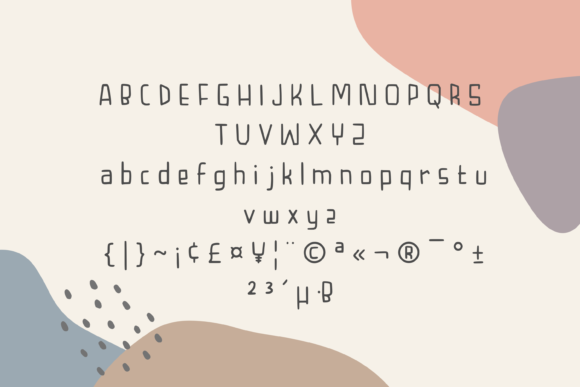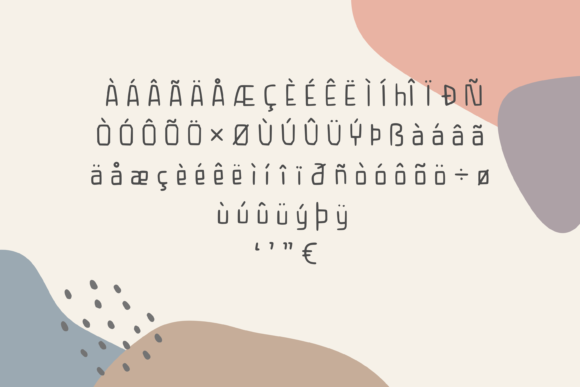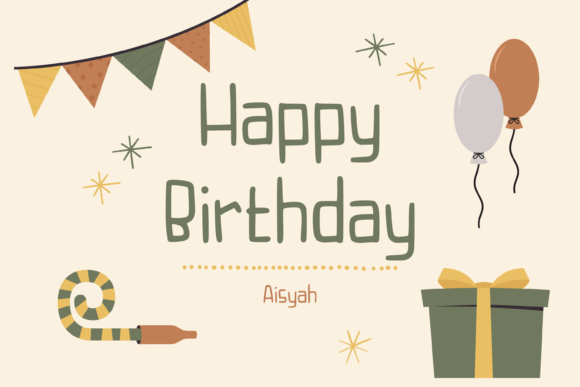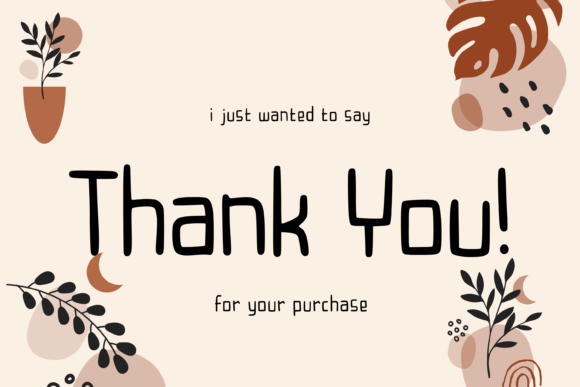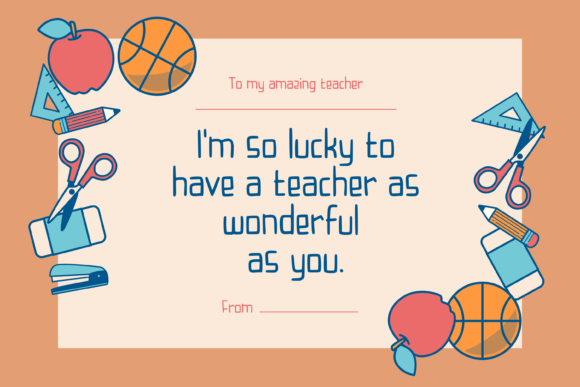
Introduction to Shakifa Font
Shakifa is a playful and friendly display font.
You can use it in various projects such as greeting cards, invitations, stickers, posts, decorations, and much more .